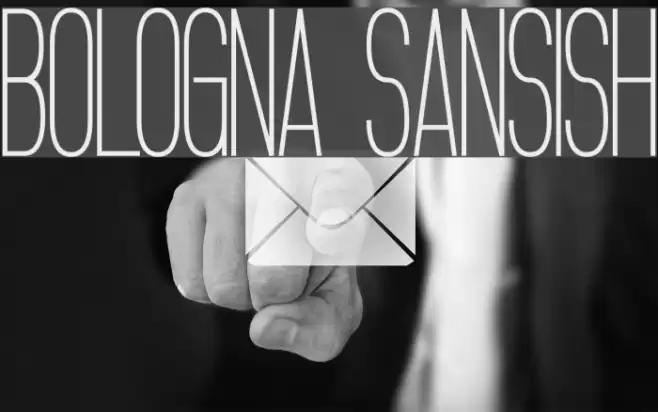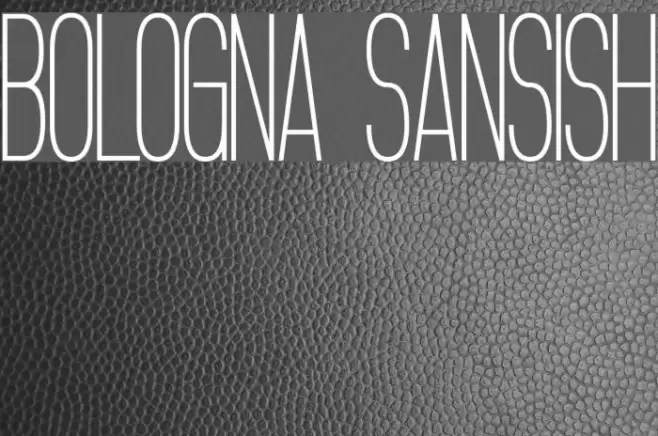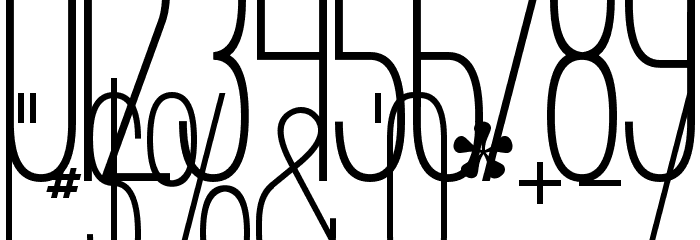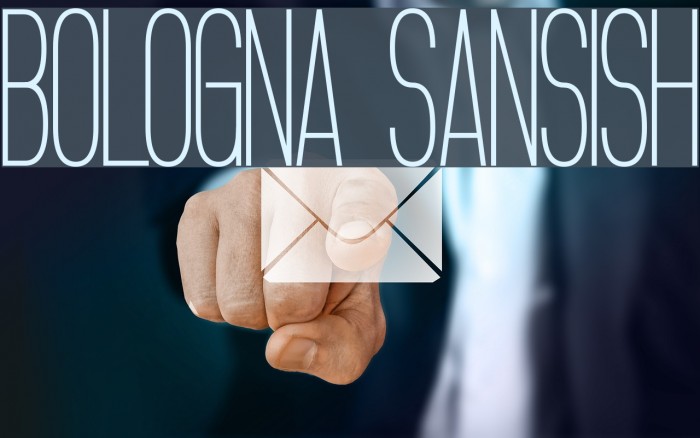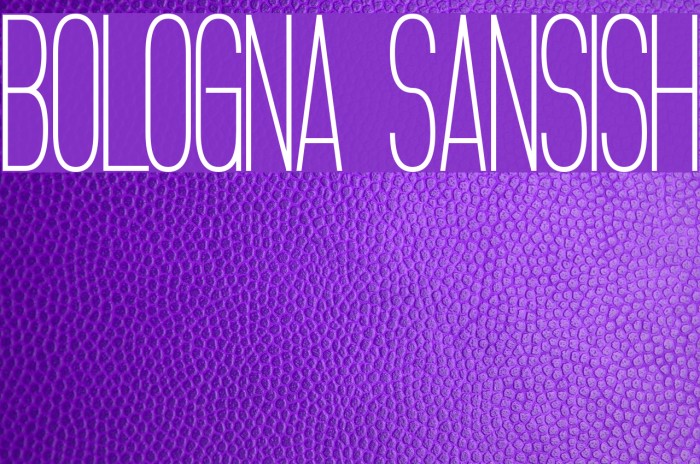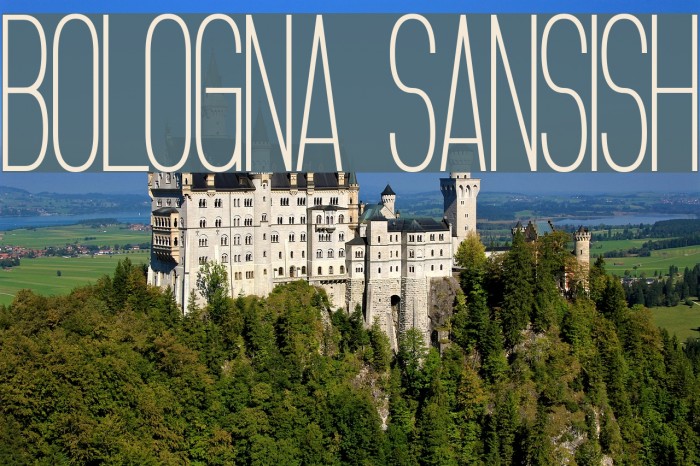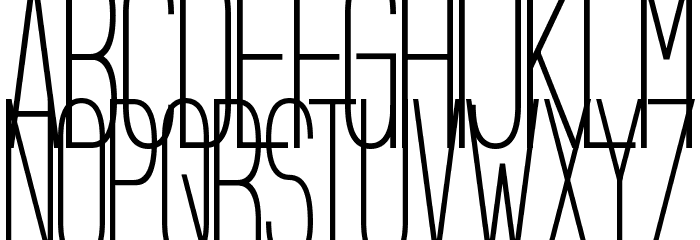
Bologna Sansish Font
Bologna Sansish Description
This font exhibits a modern and minimalist design with a distinct geometric structure. The characters are tall and narrow, featuring clean lines and a uniform stroke width that gives it a sleek and contemporary appearance. The uppercase letters are particularly elongated, adding to the font's unique style. The lowercase letters maintain the same geometric precision, ensuring consistency throughout the typeface. The numerals and special characters are crafted with the same attention to detail, making them easily legible while retaining the overall aesthetic. This font's simplicity and elegance make it suitable for a variety of design applications.
A modern, geometric font with tall, narrow characters and uniform stroke width from Uncategorized fonts.
- Proposed Projects: Ideal for branding, editorial design, and digital interfaces where a clean, modern look is desired.
- Use Case: Headlines, Logos, Digital interfaces